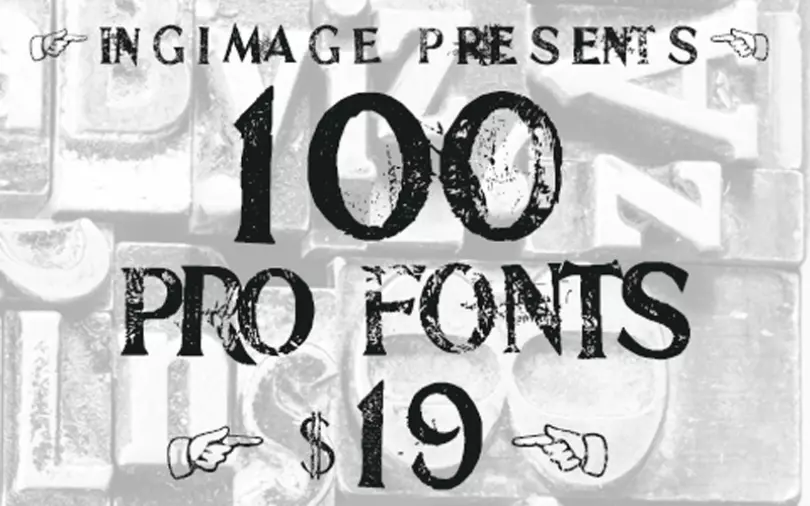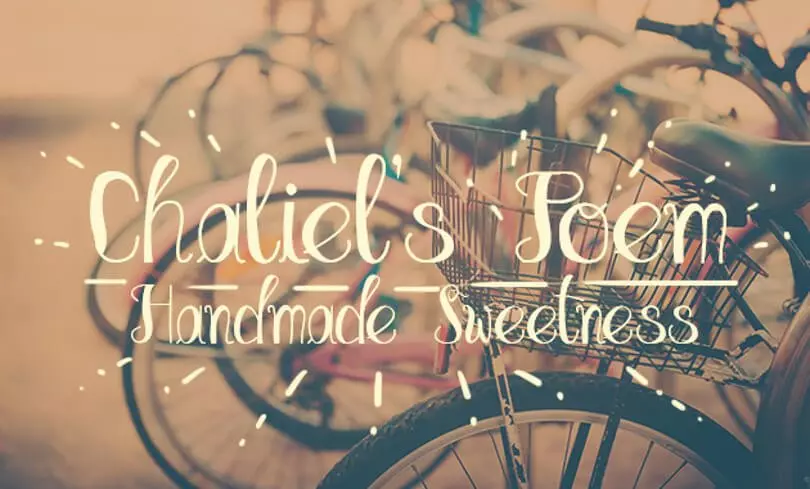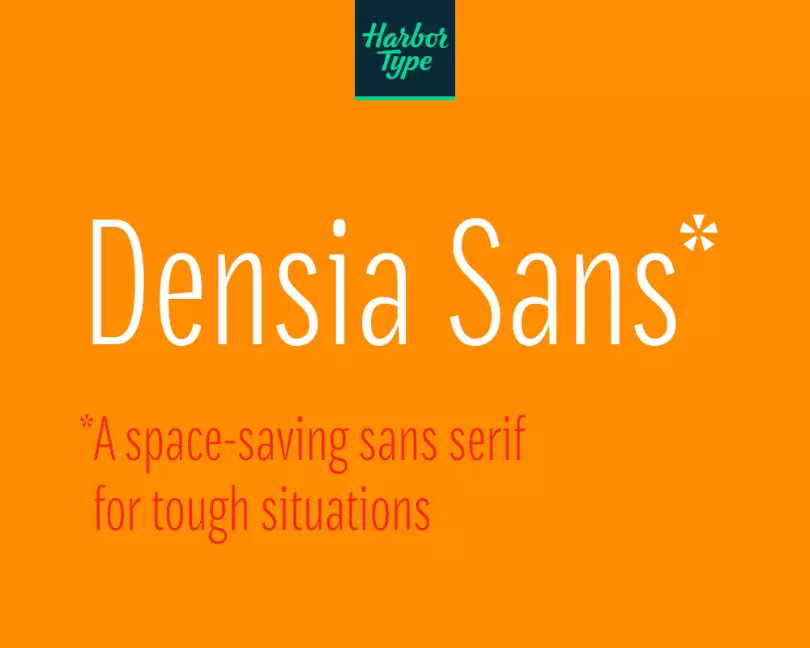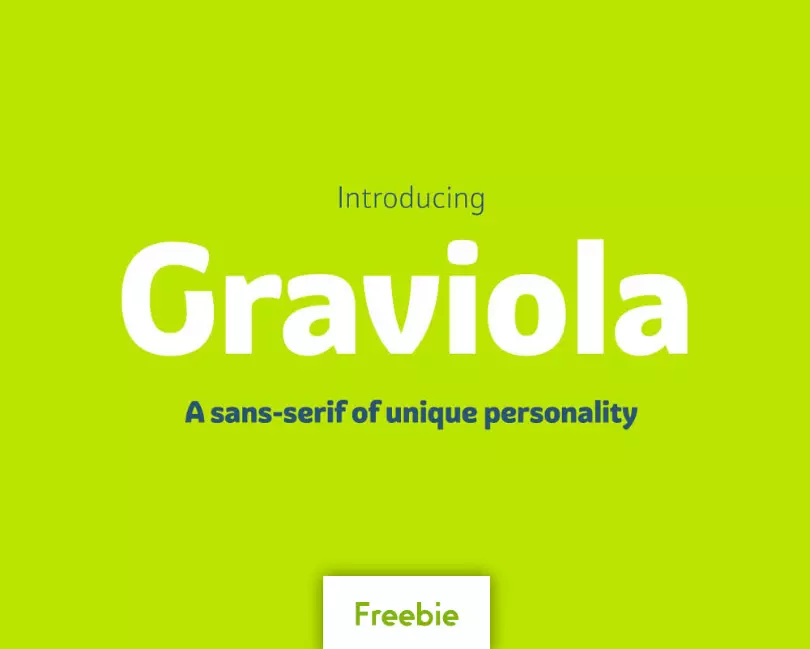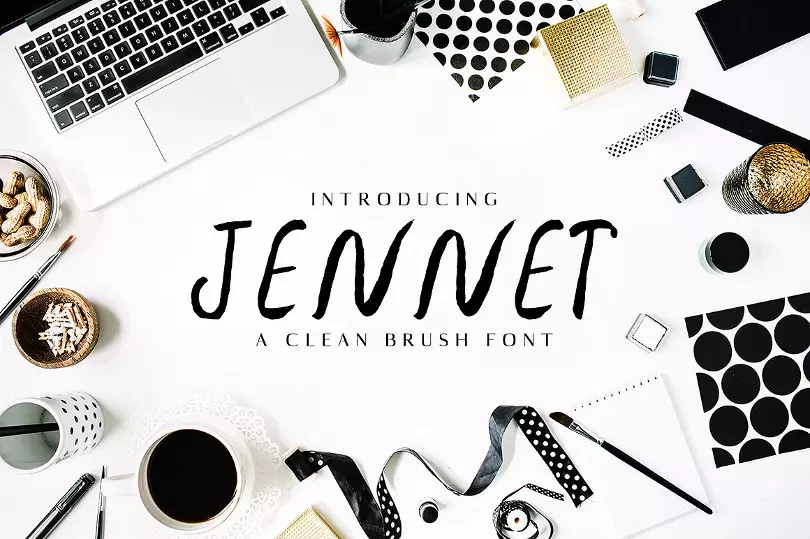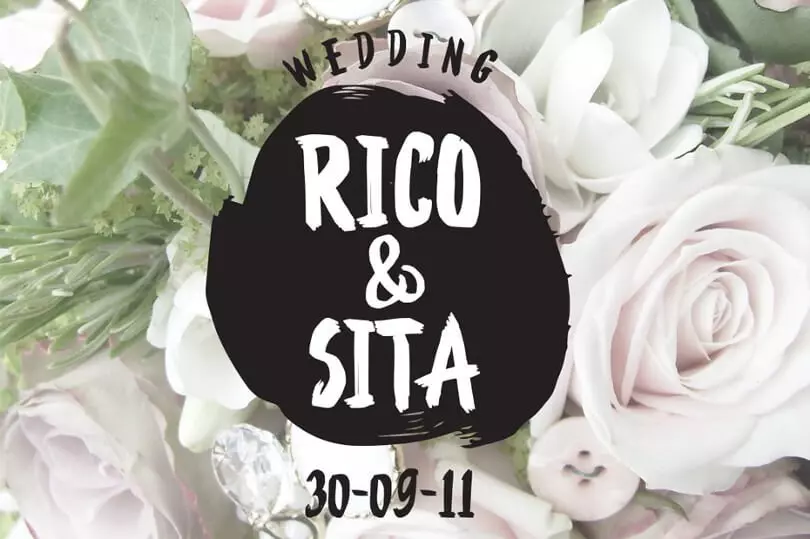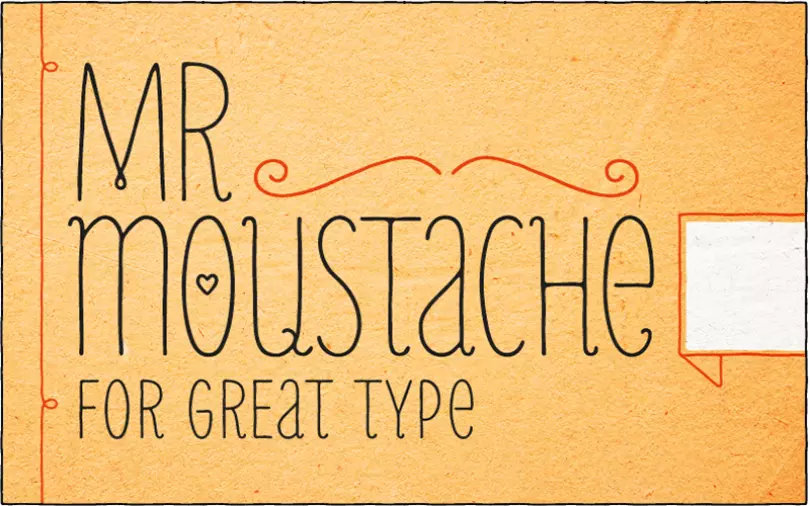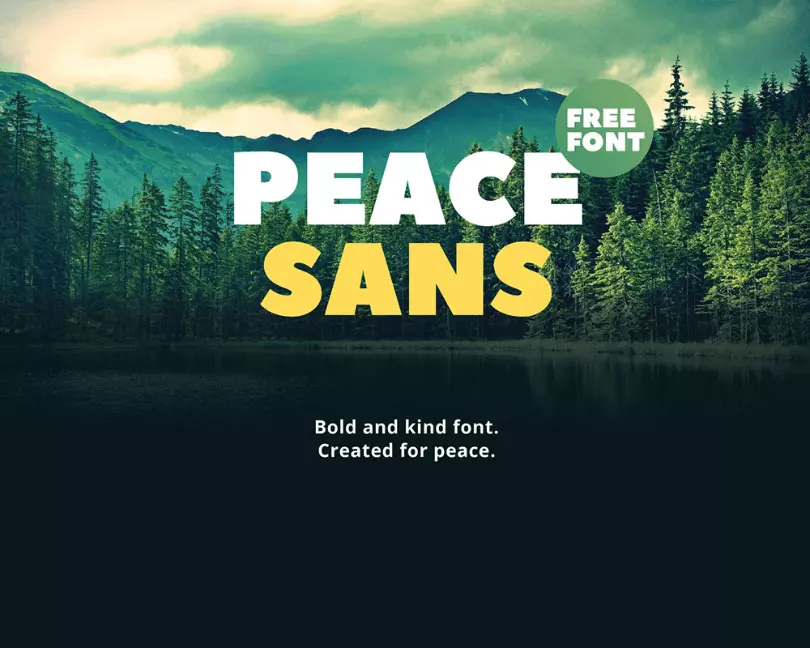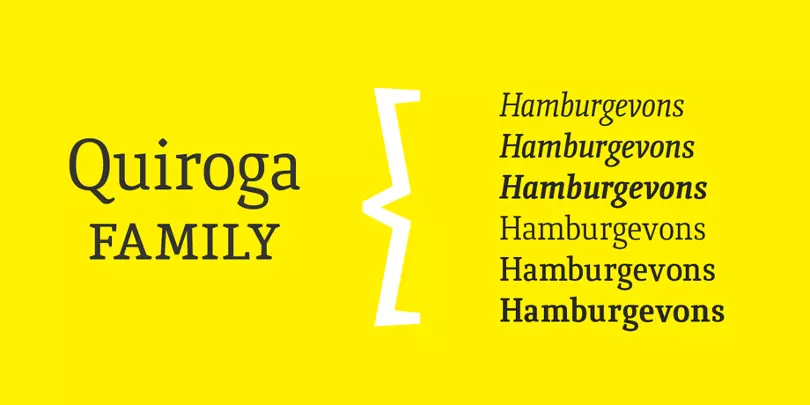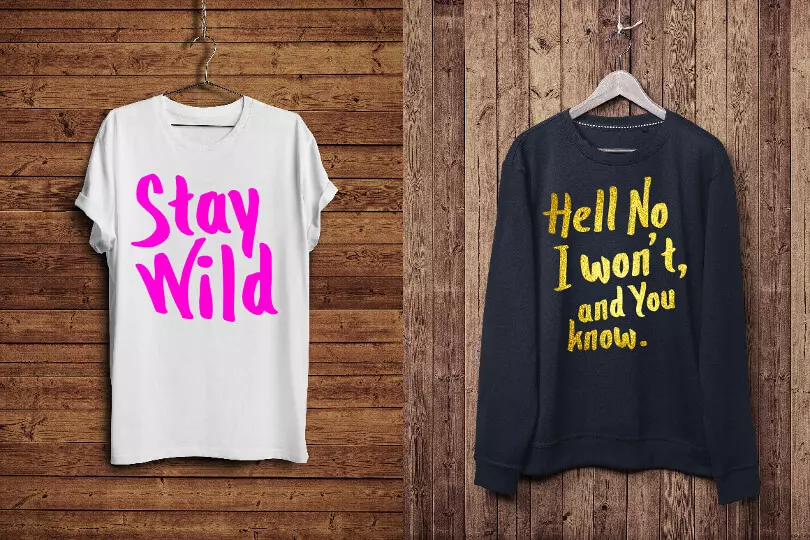
Being a hipster means staying outside the cultural mainstream. As such, hipster design is specific, maverick and worthy of a second look. A font that conveys these characteristics can undoubtedly propel any design to greater heights.
Using the right font can make a world of difference. It delivers all the positives: It brings the text to life, reinforces the message, captures the attention of readers, resonates well with the audience, ties up the entirety of the design, and creates best sellers.
If you want your design to stand out from the competition, now is the perfect time to try hipster fonts.
Here are ten of the best hipster fonts available in the market today.
Top 10 Hipster Fonts
Quiroga Serif Std Fonts Family
Quiroga font
Quiroga Serif is legible in medium and small sizes. The font looks fabulous on brochures, leaflets, small posters, and the like. Its unique, stylish design quickly catches the audience’s attention. It’s also ideal for continuous text because it saves lots of space.
This font family is particularly popular in Latin America. It has special characters native to the official languages of that region. If that doesn’t seal the deal for you, this would: Quiroga Serif is an award-winning font. WebDesignerDepot considered it one of the best fonts of 2013, and it just got better over the years.
10 Beautiful Fonts in one Amazing Bundle
Well, the title basically says it all about this gorgeous bundle of fonts. In every facet of any design, options are necessary. Having choices presents you with the best elements you can put in your design. This is what this bundle is all about. It contains ten beautiful and stylish fonts that can elevate any concept in a snap. All are suitable for web design, print media, social media, and artwork.
In the bundle, you have Haytham, which contains seven slab Serif fonts. Then there’s Jennet, a clean brush font. Next is Rockley, a sophisticated Sans Serif typeface. You have the Yessica Sans Serif font, an all-caps minimalist type. Another one is Wrenn, a Sans Serif type with a masculine vibe.
The Aiden Art-Deco font comes next, exuding a distinct hipster look and feel. Another in the pack is Zahra Serif, a typeface featuring four different weights. Then there’s the Vengeance typeface, which is pretty straightforward. Zack Serif comes next with five weight variations. Last but not least, the Zisel font, a high-class Sans Serif typeface.
Peace Sans
“Bold and kind font. Created for peace.” With a tag line like that, it’s hard not to get attracted to this awesome package. Witty tag aside, Peace Sans is a phenomenal font perfect for logo designs and branding. Its weight is bold, but it isn’t heavy-looking. Rather, it has an impressive calming effect that brings your audience repose even for just a minute.
The Peace Sans pack is also multilingual. To name a few, it “speaks” English, Russian, French, Dutch, Italian, Polish, and Spanish. It also has full glyph support. One of the best things about this font bundle is that it’s free. So, get ready to achieve your project deadlines with these free hipster fonts.
The Warm and Friendly Mr. Moustache Font Family
Nothing says hipster quite like a hippy moustache design. It just gives a warm, quirky, friendly feeling. The Mr. Moustache bundle features ten unique open-type fonts, frames, ornaments, and decorations—a package filled with design possibilities.
All fonts in the bundle have a super slim weight. They are perfect for printed materials like shirts. These fonts look great on posters and print ads. They are ideal for unique web page designs. You essentially can use the bundle for any design that requires hippy vibes. Best of all, the package features cross-platform compatibility, so it’s less work for you. The Mr. Moustache bundle has a single-user license. The fonts are usable for both personal and commercial projects.
Mega Choices in One Mega Fonts Bundle
Not only will you get 18 premium fonts from this mega pack, but you’ll also receive 13 bonus sets. This is definitely a good deal if you’re looking for hipster fonts in various designs. Each font is perfect for print ads, outdoor banners & campaigns, and sale notifications. This mega outdoor fonts bundle is everything you need to elevate your ad campaigns. You can even use these fonts for sending invitations and gift cards. They also look fantastic on tickets and coupons.  In addition, you can give a magic touch to your ads with some special artistic effects to get better conversions.
The bundle contains 52 beautiful Open Type fonts that support advanced typographic features. They fit cross-platform integration. And they can “speak” to 200,000,000 readers around the world. With this bundle, you’re able to create a ton of designs with different themes. It’s an investment every designer should take advantage of. The bundle comes with a commercial license. It’s usable for unlimited personal and commercial projects. So, are you ready to rock your designs with this hipster typography fonts bundle?